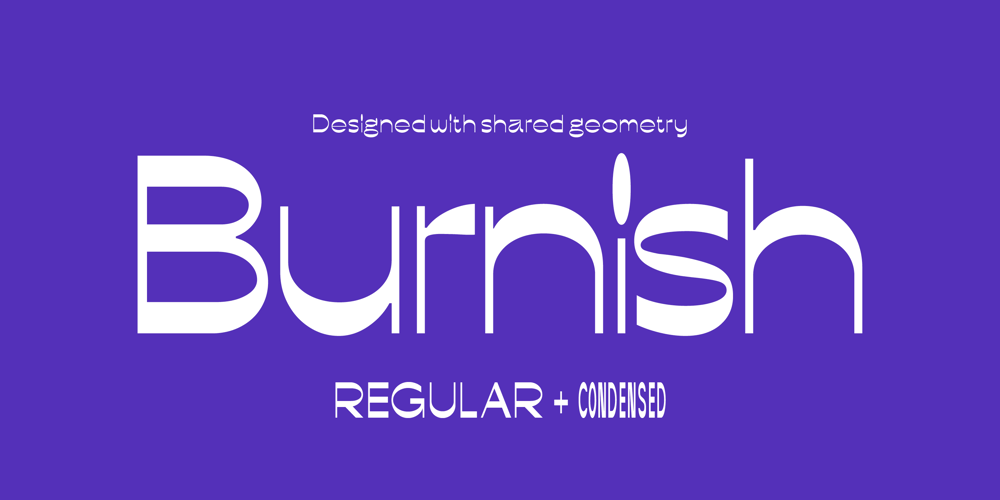
Burnish Font Family was designed by Paul Henry Robb and published by S6 Foundry. Burnish contains 10 styles and family package options. Burnish Font family comes in 2 distinctive wide and condensed forms. Burnish is a contemporary typeface family with strong stylistic geometric contrasts representing the shifting contemporary aesthetics. Its distinctive stance and wide-open counters allow the right visual consistency for branding and communications projects.